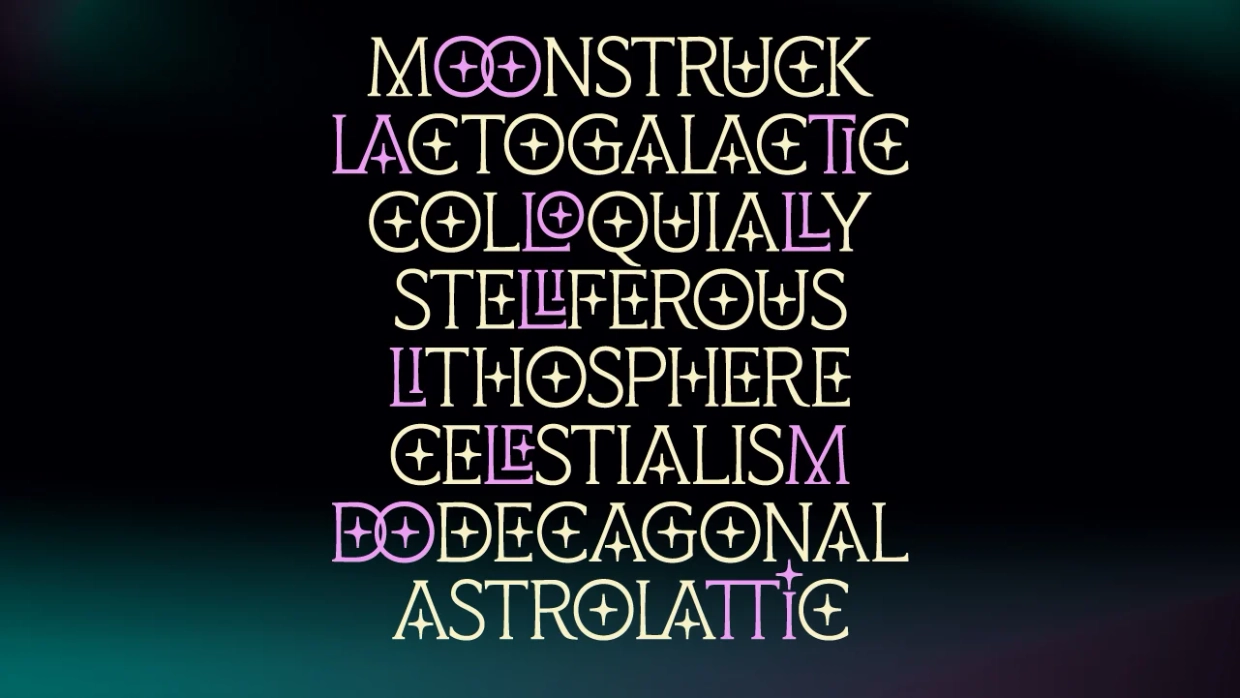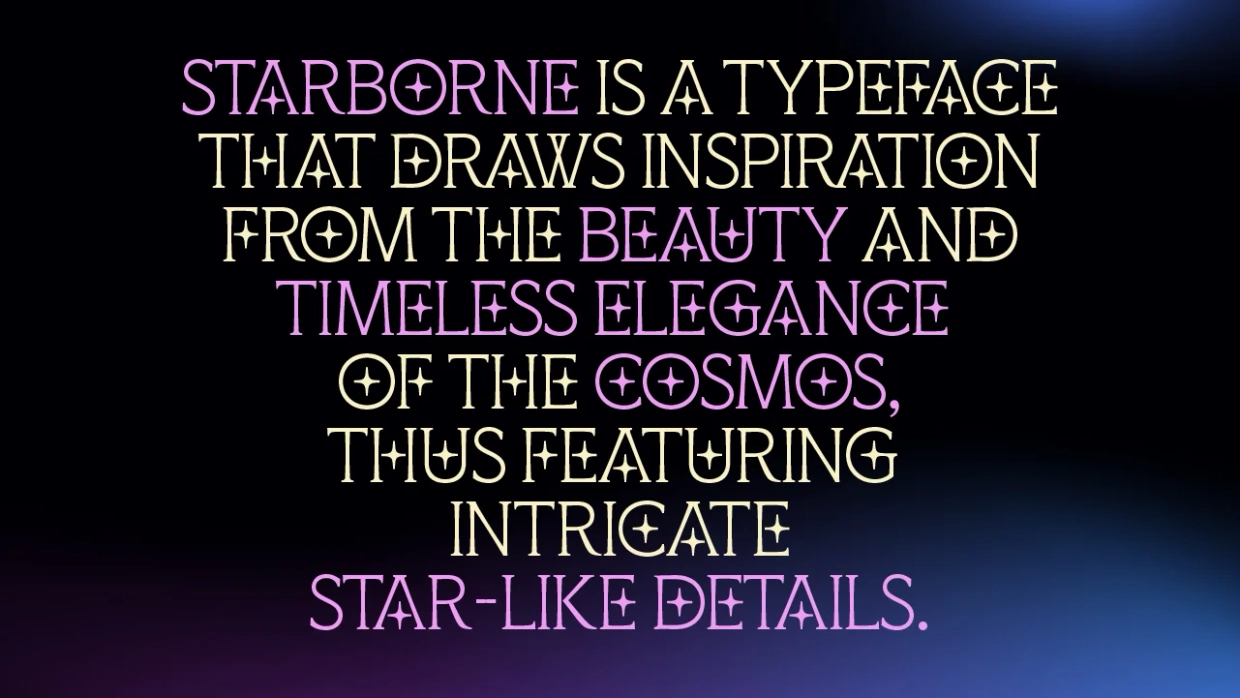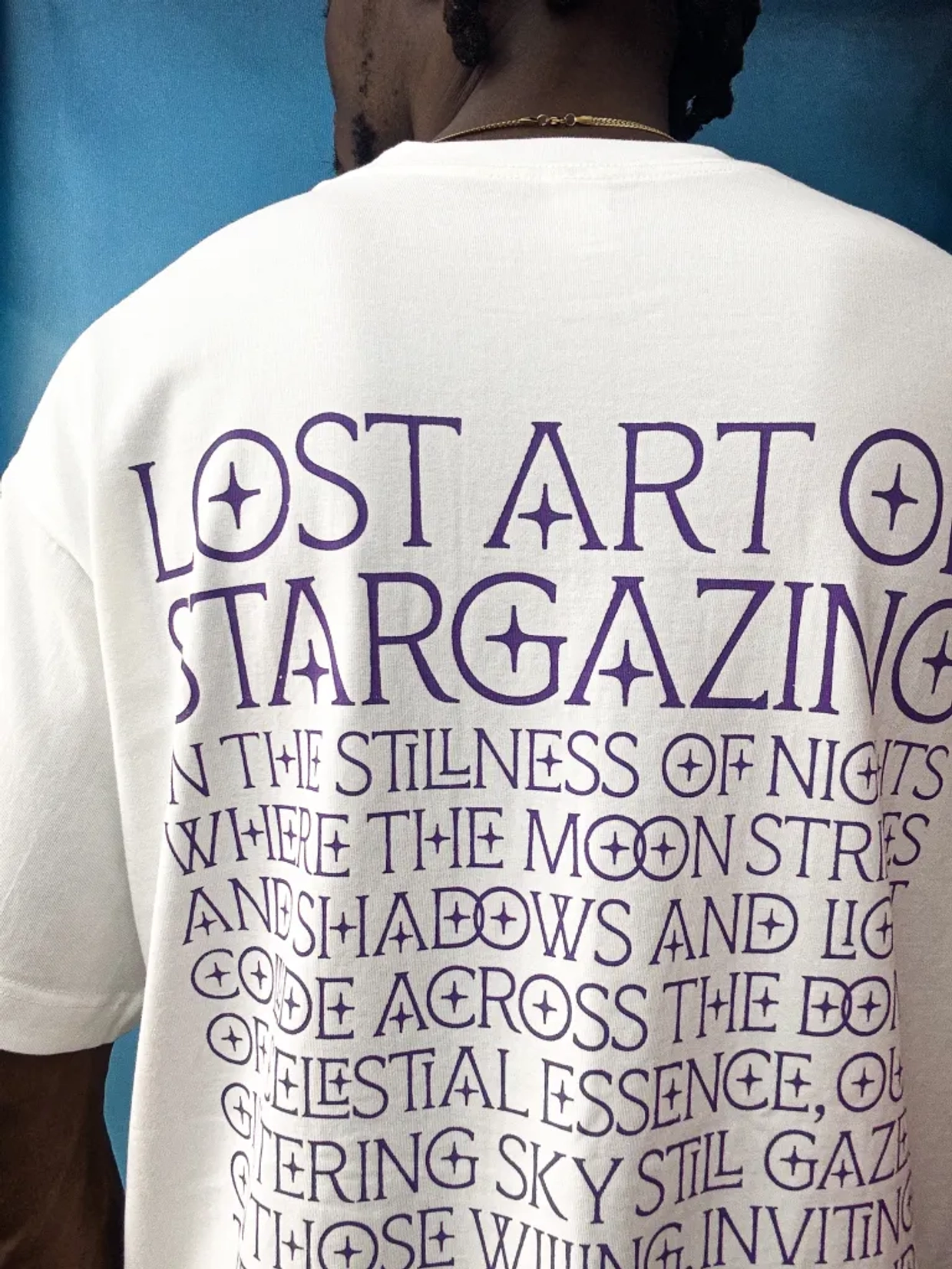
Starborne, the latest typeface from Chisa Joboson is inspired by the vast expanse of outer space, this decorative serif typeface feels like you’re staring out into the cosmos, watching stars twinkle as the universe unfolds.
Joboson’s illustrious career has seen him collaborate with renowned clients like HashApp, Tremendoc, and Cardtonic. His exceptional work has earned global recognition, including his recent commission with Google Fonts for the acclaimed Ojuju typeface.